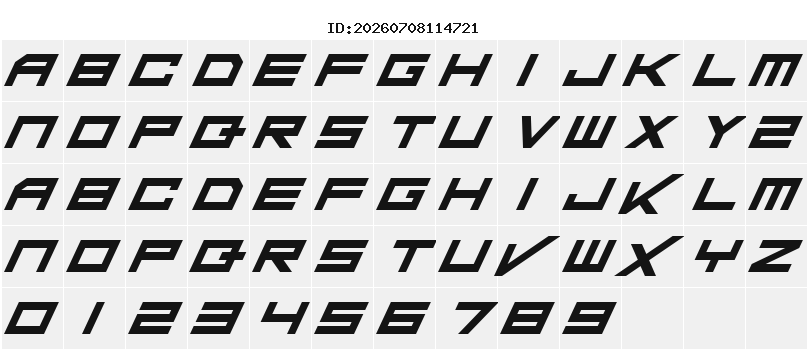
• Font Name: Da Mad Rave
• Full Font Name: Da Mad Rave Italic
• Designer: Darrell Flood
About Da Mad Rave.otf
Da Mad Rave.otf is a modern, elegant sans-serif font designed for ultimate readability and visual harmony. Perfect for branding, headlines, web design, and print materials.